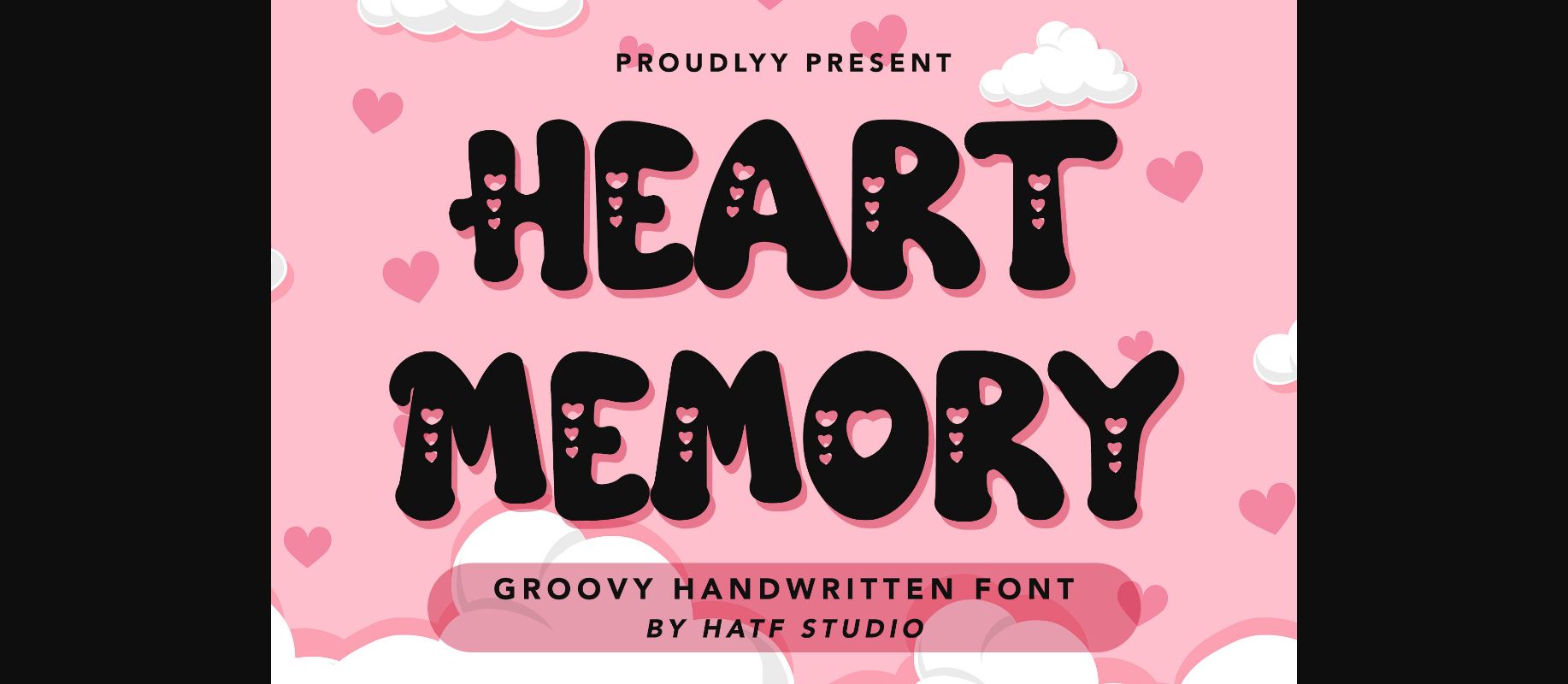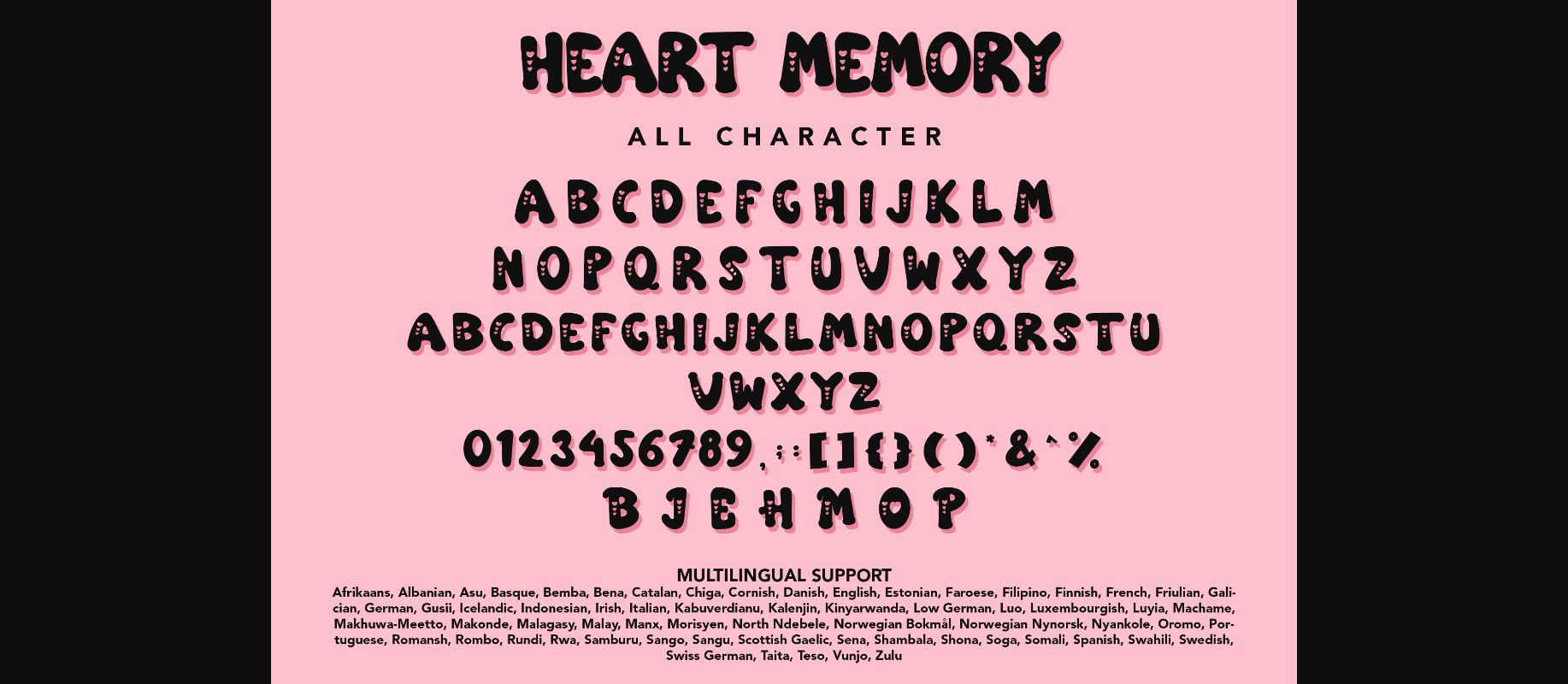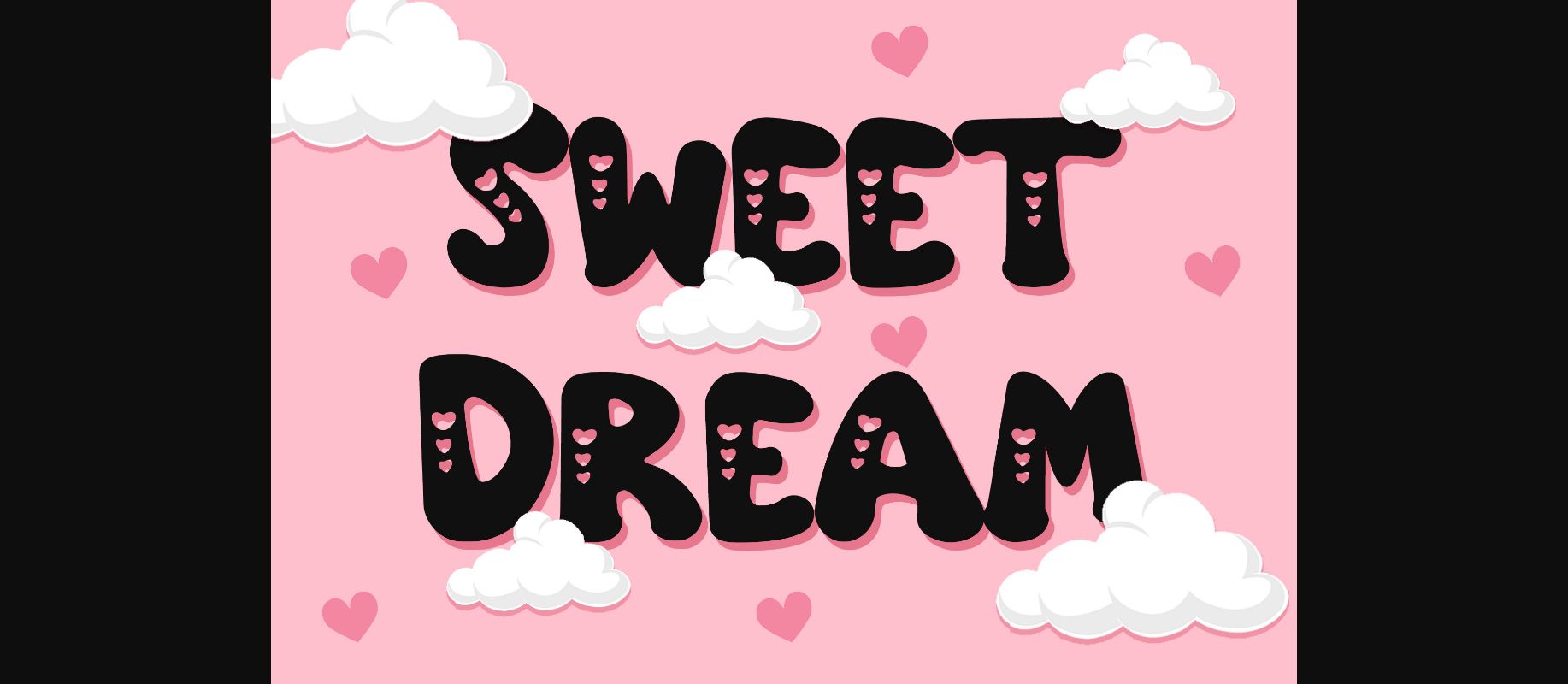
About Heart Memory Font
Heart Memory – Groovy Decorative Font with distinctive handwritten characters. It is perfect for branding projects, logos, wedding designs, social media posts, advertisements, product packaging, product designs, labels, photography, watermarks, invitations, stationery, and any project that needs lovely typography.